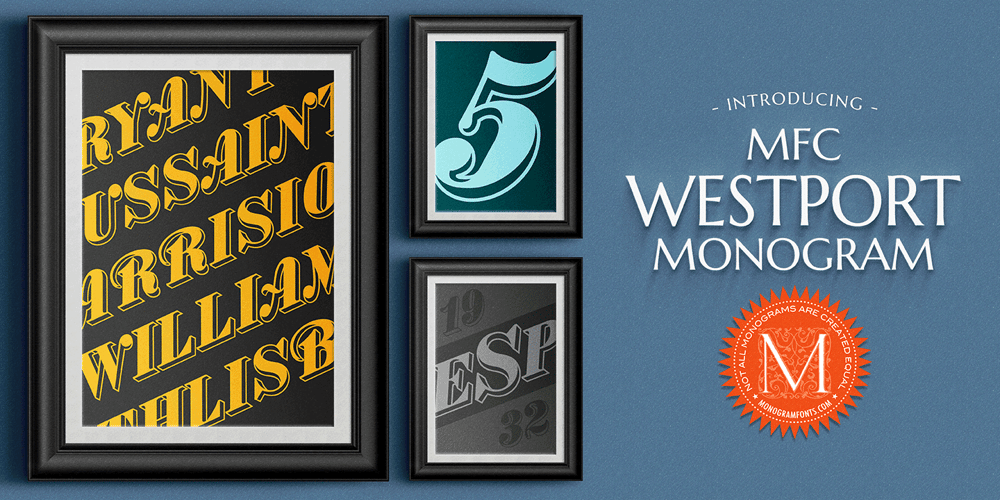
MFC Westport Monogram
MFC Westport Monogram font
MFC Westport Monogram Font Family was designed by Jim Lyles, Brian J. Bonislawsky and published by Monogram Fonts Co.. MFC Westport Monogram contains 4 styles and family package options. The inspiration for MFC Westport Monogram was a heavily soiled vintage lettering & penmanship book which only listed this alphabet specimen as “Banker Tilted”. The look and feel of this typestyle is reminiscent of old checks and cartography lettering styles, lending itself a wonderful sense of antiquity for any monogram or headline typeset with it. Download and view the MFC Westport Monogram Guidebook if you would like to learn a little more.